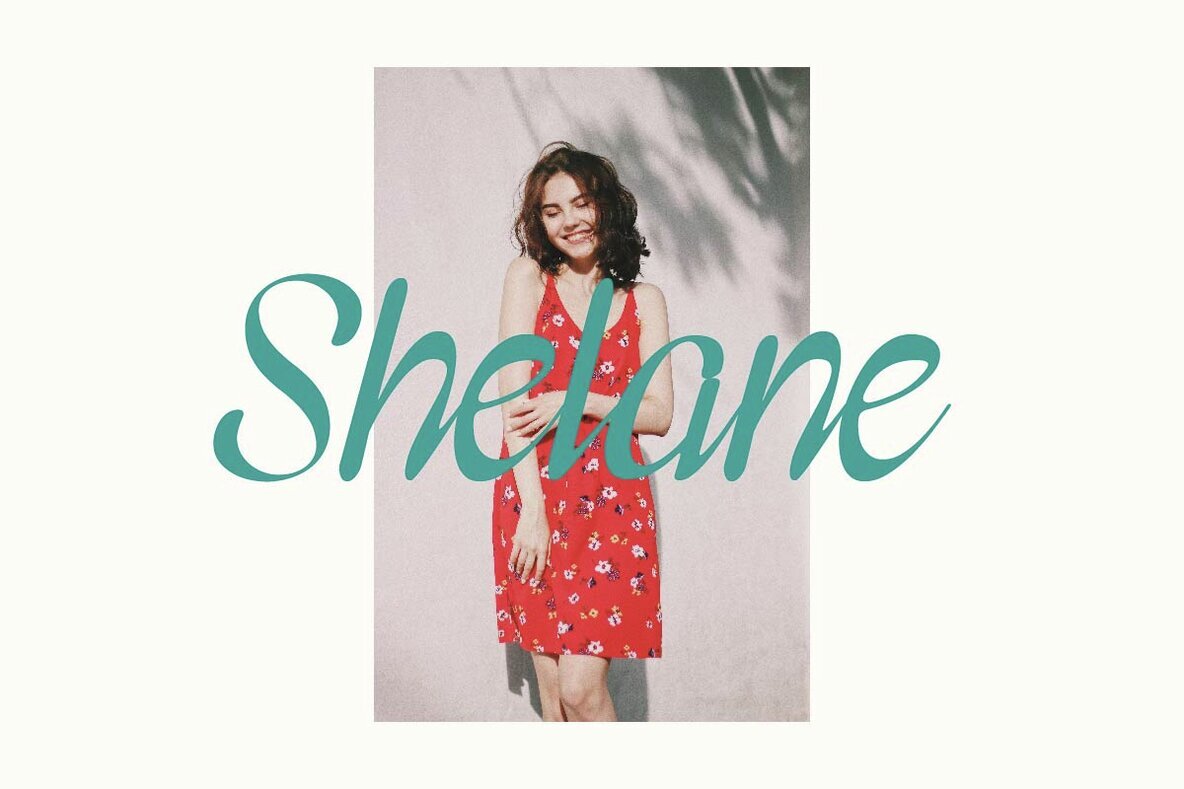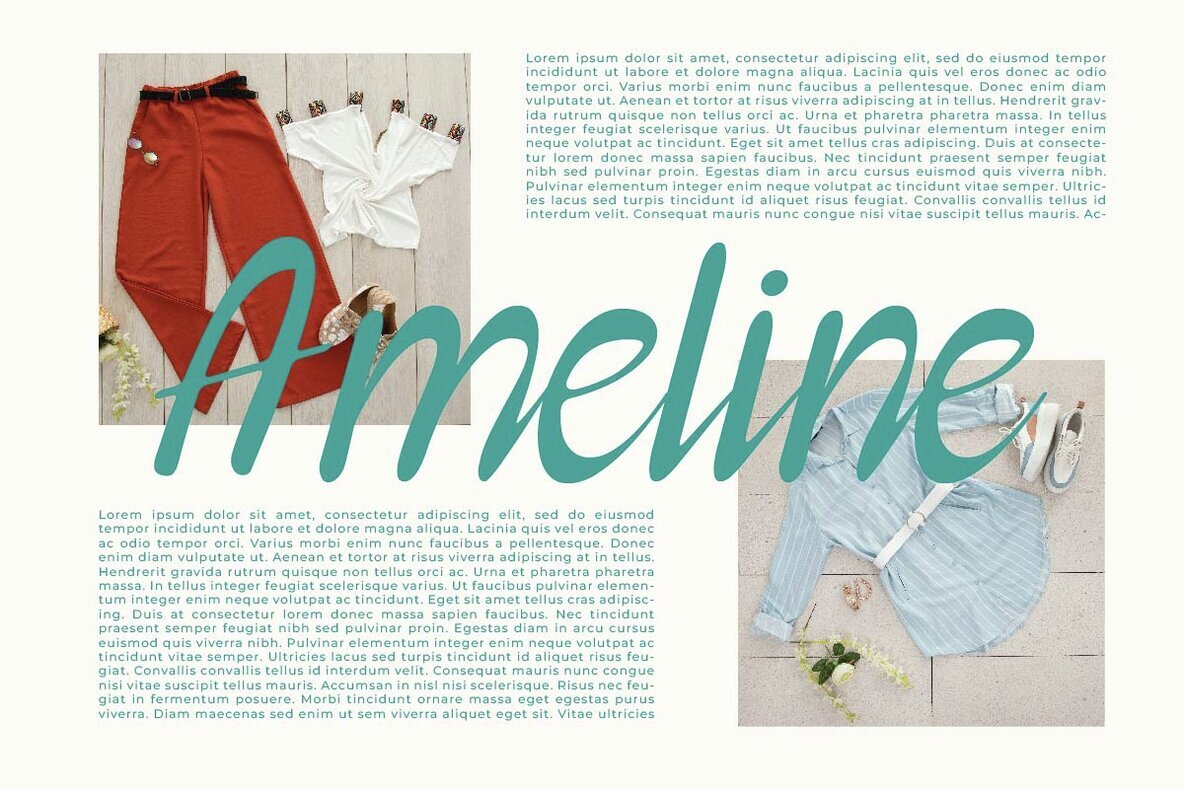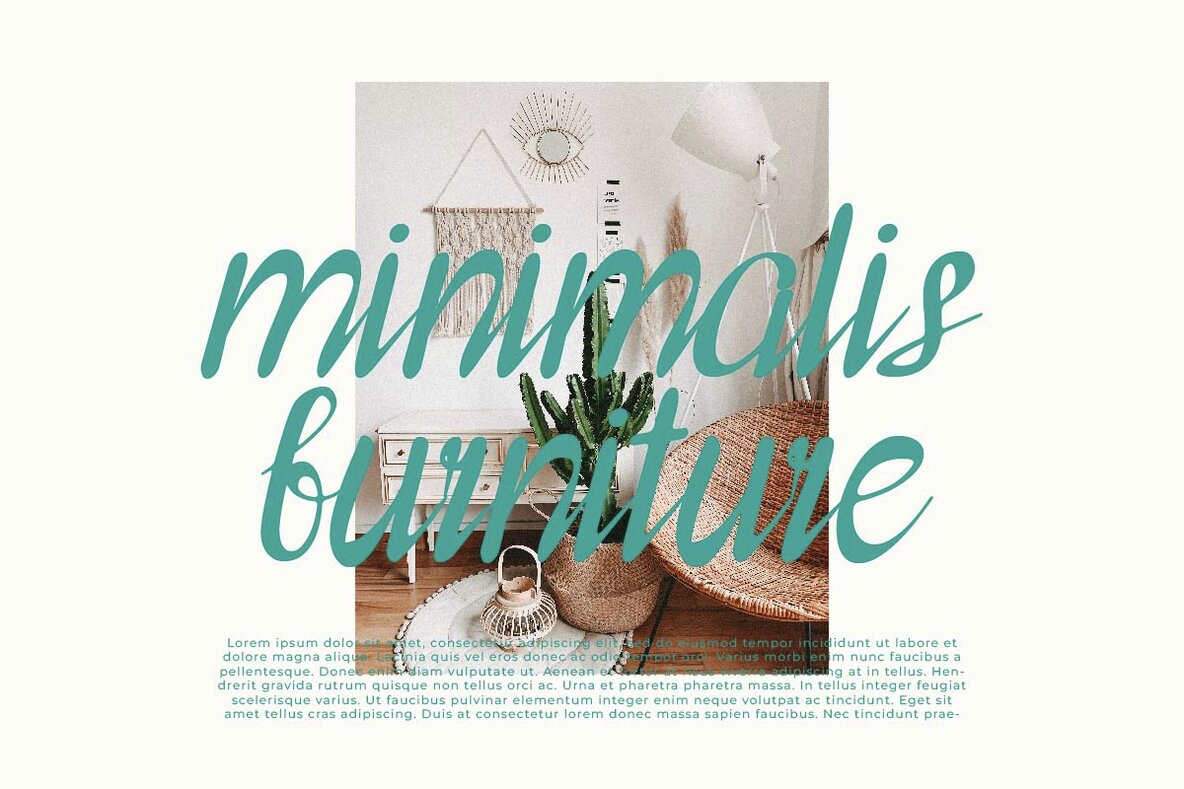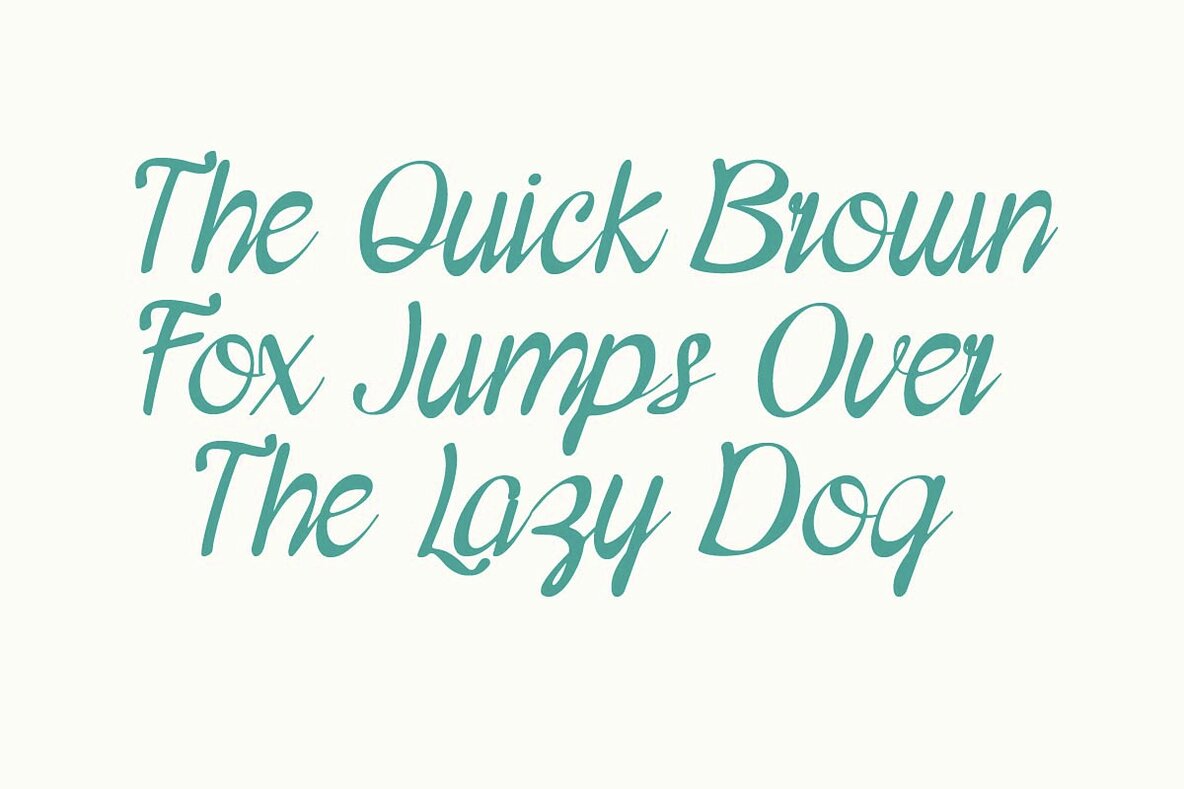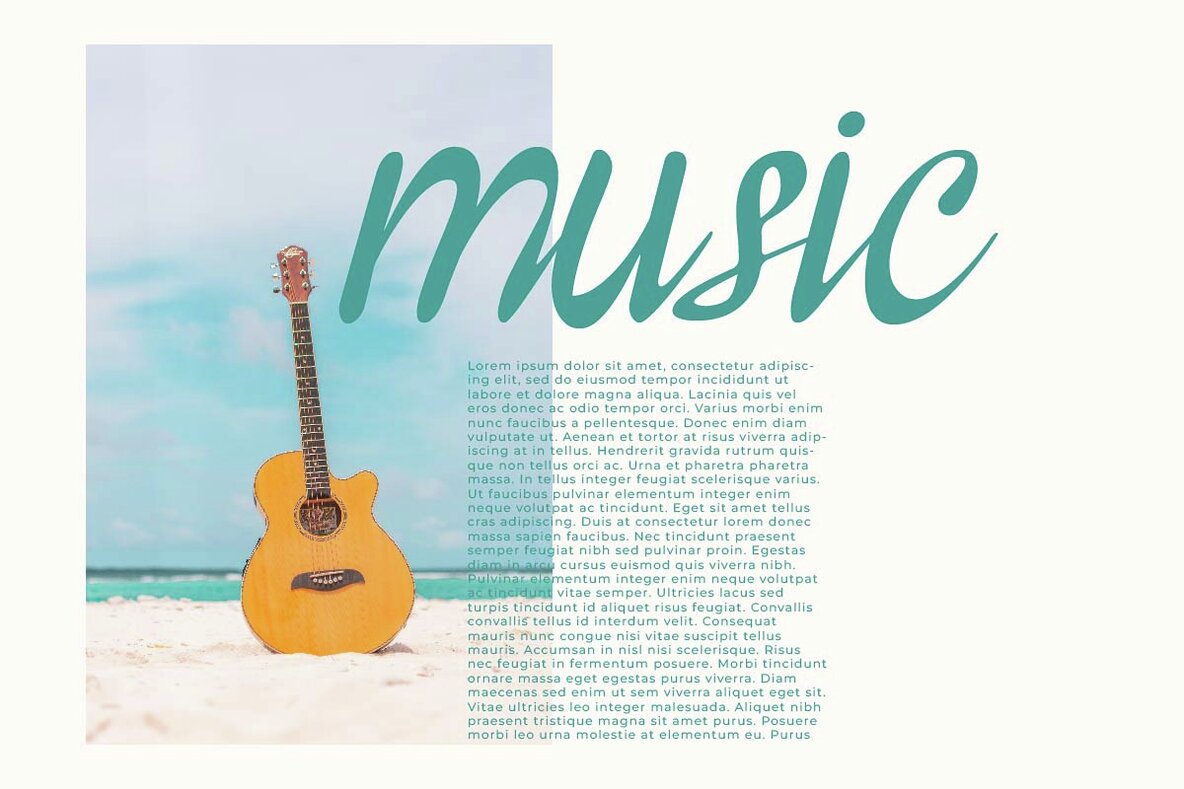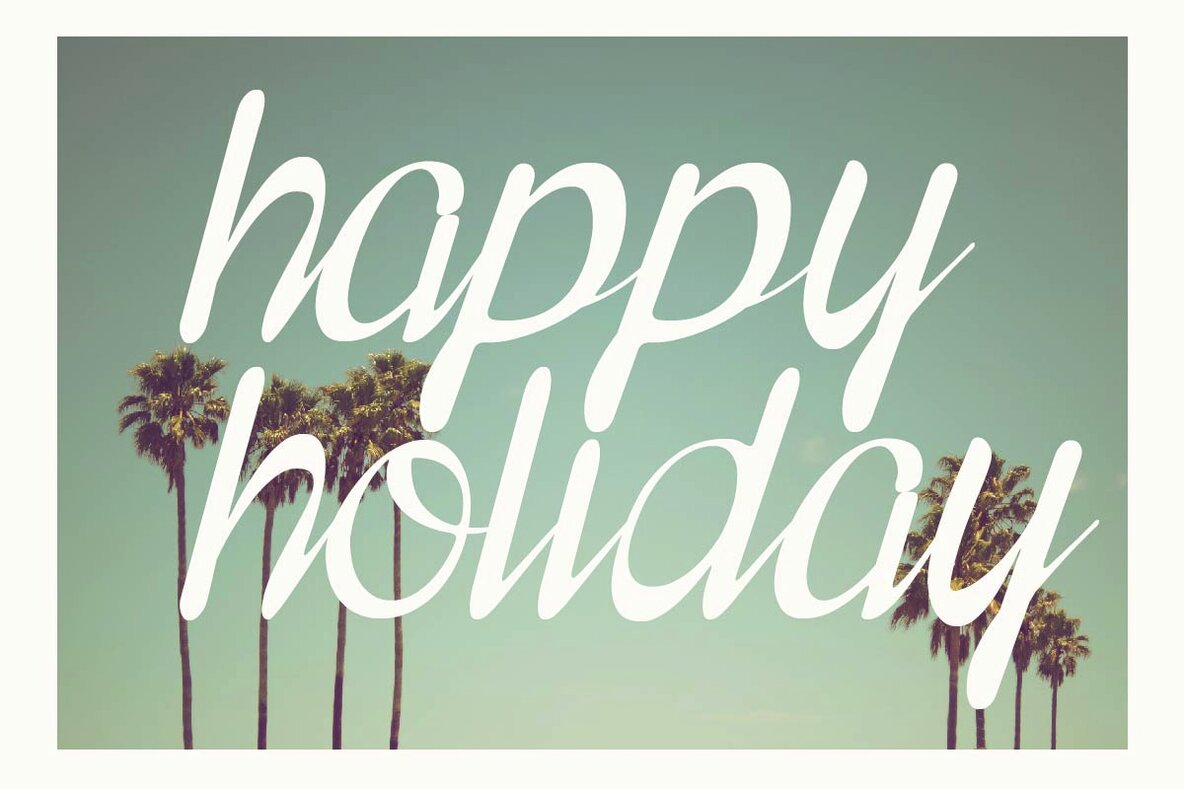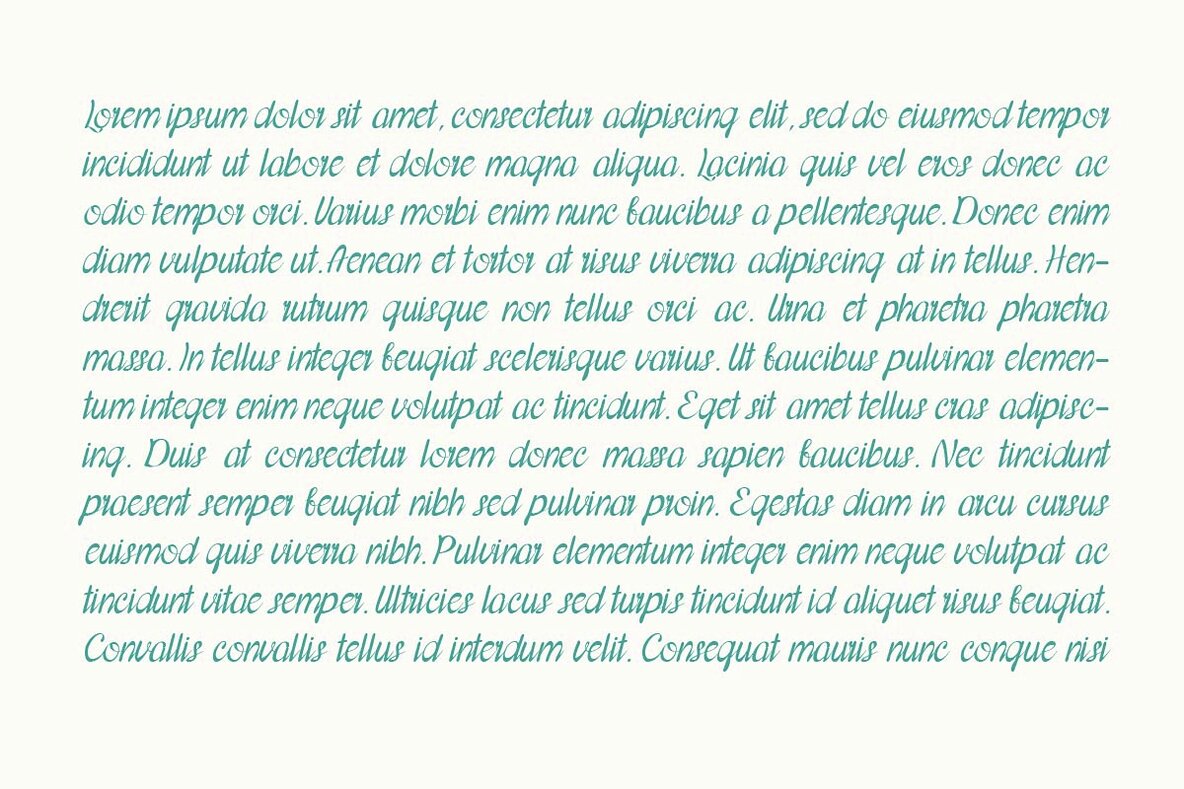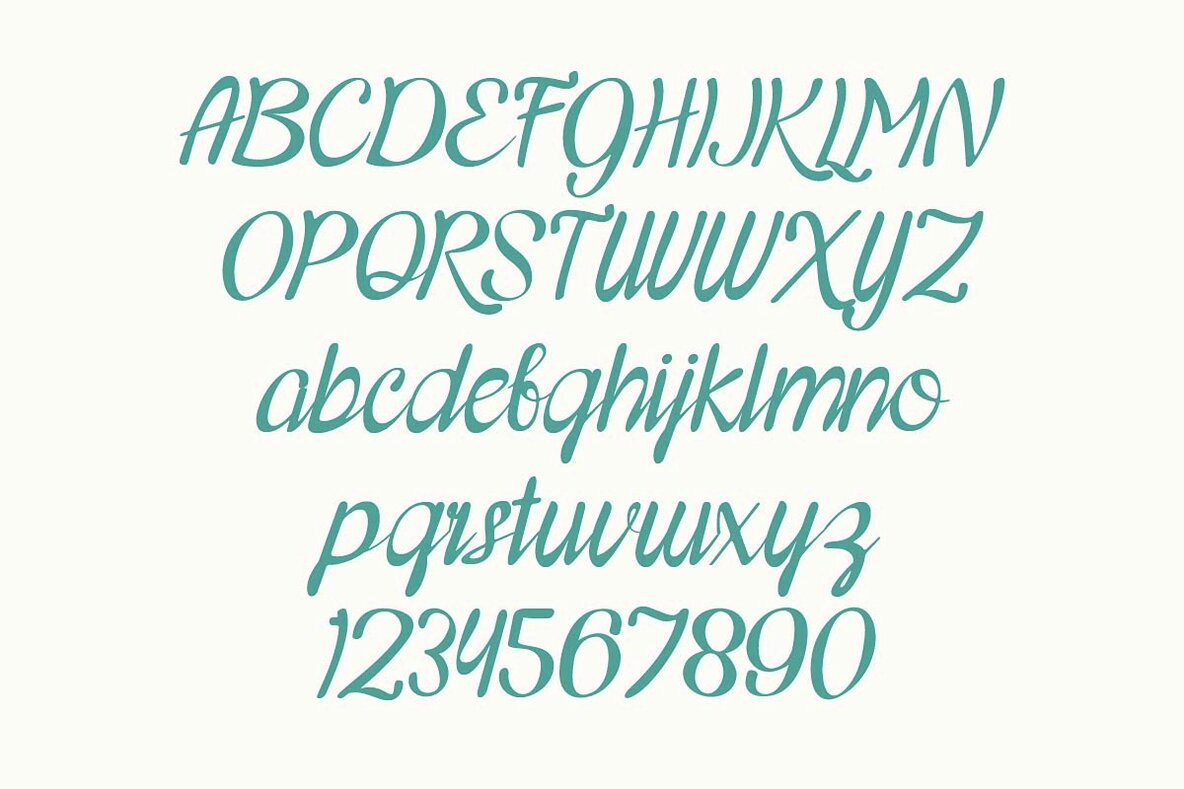
Cheltine Font
Cheltine Regular
Cheltine is a modern vintage script font that blends the classic elegance of vintage design with a modern twist. Its fluid lines and graceful curves are inspired by traditional calligraphy, updated with a contemporary flair, making it particularly well-suited for feminine-focused designs. This font is ideal for a wide range of applications, including branding, packaging, social media, and any project aiming to convey beauty, fashion, and modernity. Its versatility also makes it a great choice for modern-themed logos, offering a balance of innovation and timeless elegance. Cheltine is designed to evoke a sense of intimacy and connection, perfect for use in beauty products, fashion brands, boutique branding, and lifestyle blogs, thereby serving as a powerful tool for designers looking to make a significant impact in the modern, feminine market.